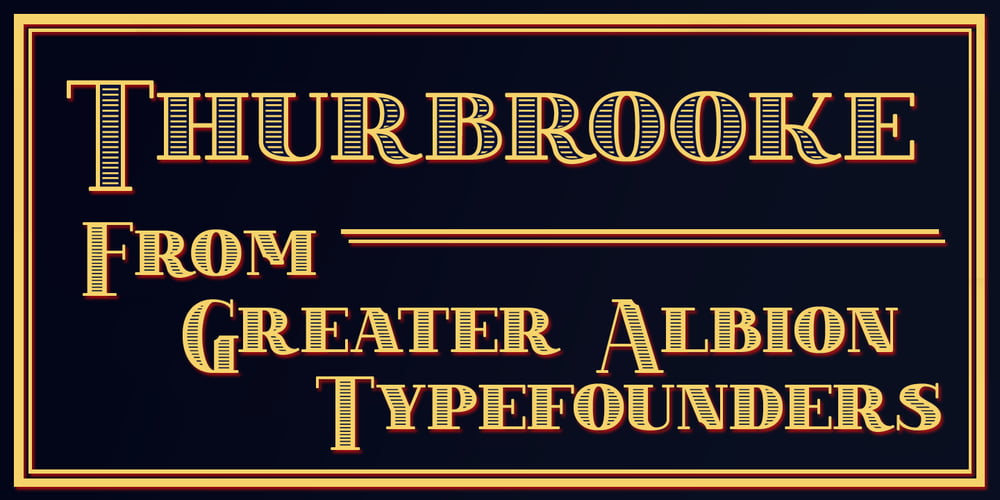
Thurbrooke Font Family was designed by Paul James Lloyd and published by Greater Albion Typefounders. Thurbrooke contains 5 styles and family package options. Thurbrooke is an early 20th century inspired display family, offering two sizes of Roman capitals. Five typefaces are offered in the Thurbrooke family. The Regular face is shaded in horizontally engraved lines and suggests something of vintage advertising captions. A reversed ‘Reverso’ face, transposing black and white space is offered, as is a ‘Black’ face with solid letterforms. The remaining two faces are a bit more specialised. Thurbrooke ‘Banner’ is the latest in our popular line of masthead or cartouche faces-very impressive for banner headings. Thurbrooke Initials is a set of initial capitals, which blend in perfectly with Thurbrooke Reverso, or which also make splendid drop capitals. Why not explore some (or all) of the elements of the Thurbrooke family today, and introduce some early 20th century inspired colour to your work?